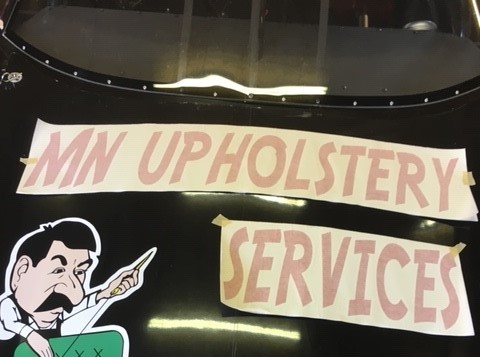
Here it is. Can’t figure out where to find it or what it’s called. Client says the font is called “action” but I can’t find anything that looks even close…please help need to figure out what font this is asap.
The font is called Adventure Regular - created to look like the Raiders of the Lost Ark movie posters. It is a free download from several websites.